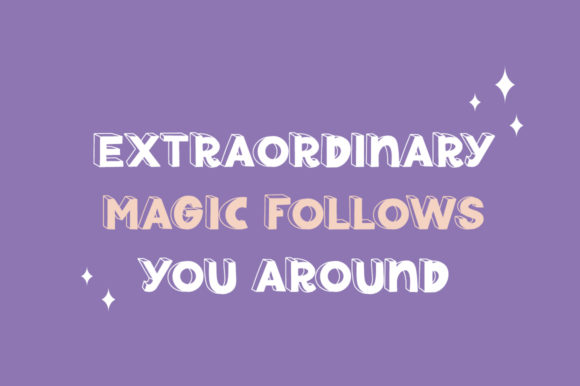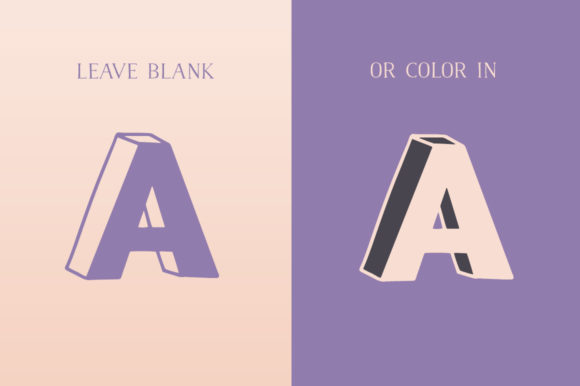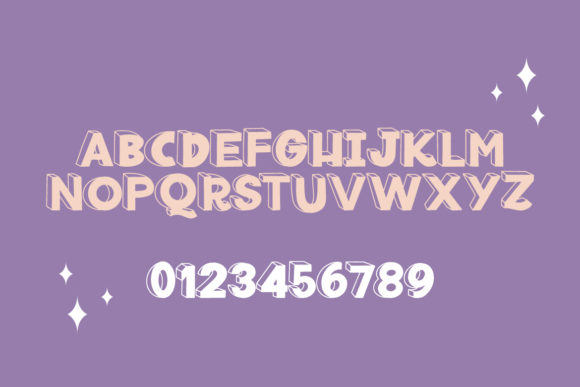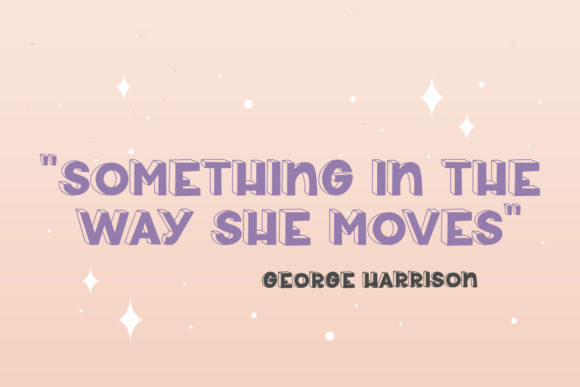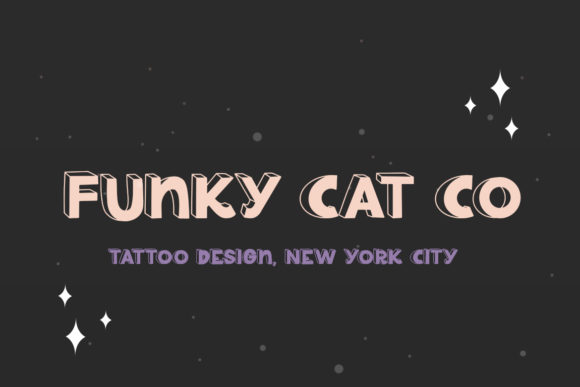
Introducing Cutie Pie Font: The Sweetest Display Font for Your Designs
Are you looking for a font that exudes warmth, friendliness, and approachability? Look no further than Cutie Pie Font, a fun and authentic display font that’s perfect for adding a touch of sweetness to your designs. With its chunky characters and incredibly sweet vibe, Cutie Pie is a versatile font that can be used in a wide range of contexts, from crafting and DIY projects to digital designs and branding.
The Charm of Cutie Pie Font
Cutie Pie Font is a display font that’s all about conveying a sense of friendliness and approachability. Its chunky characters are playful and fun, making it perfect for designs that require a bit of whimsy and personality. Whether you’re creating a logo, a title, or a heading, Cutie Pie Font is sure to add a touch of warmth and sweetness to your design.
What Makes Cutie Pie Font So Special?
So, what sets Cutie Pie Font apart from other display fonts? Here are just a few reasons why this font is a standout:
- Unique Character Set: Cutie Pie Font features a unique character set that’s both playful and charming. Each letter is carefully crafted to convey a sense of friendliness and approachability.
- Chunky yet Sweet: The chunky characters of Cutie Pie Font are balanced perfectly with a sweet and friendly vibe, making it perfect for designs that require a bit of contrast.
- Versatile: Cutie Pie Font is incredibly versatile and can be used in a wide range of contexts, from digital designs to crafting and DIY projects.
Cutie Pie Font is a perfect fit for designers and crafters who are looking for a font that can add a touch of personality to their work. Whether you’re creating:
- Digital Designs: Use Cutie Pie Font to add a touch of sweetness to your digital designs, from social media graphics to website headers.
- Crafting and DIY Projects: Add a personal touch to your crafting and DIY projects with Cutie Pie Font, perfect for making handmade cards, gift tags, and more.
- Branding and Logo Design: Use Cutie Pie Font to create a logo or brand identity that’s friendly, approachable, and memorable.
Tips for Using Cutie Pie Font
Here are a few tips for getting the most out of Cutie Pie Font:
- Pair with Other Fonts: Experiment with pairing Cutie Pie Font with other fonts to create a unique and eye-catching combination.
- Use in Headings and Titles: Cutie Pie Font is perfect for use in headings and titles, adding a touch of personality and whimsy to your design.
- Experiment with Colors: Try out different colors and textures with Cutie Pie Font to add depth and interest to your design.
In conclusion, Cutie Pie Font is a fun and authentic display font that’s perfect for adding a touch of sweetness and friendliness to your designs. With its unique character set, chunky yet sweet vibe, and versatility, Cutie Pie Font is a great fit for designers and crafters looking for a font that can add personality and whimsy to their work. So why not give Cutie Pie Font a try and see how it can add a touch of cuteness to your designs?